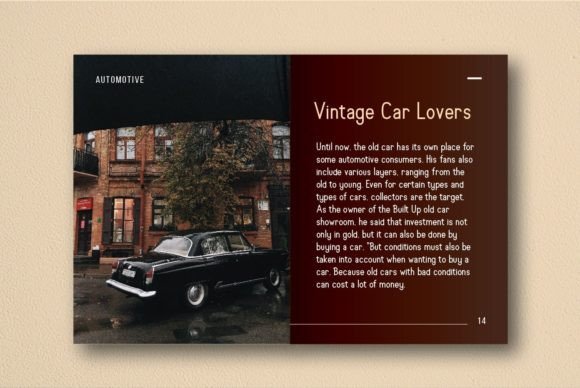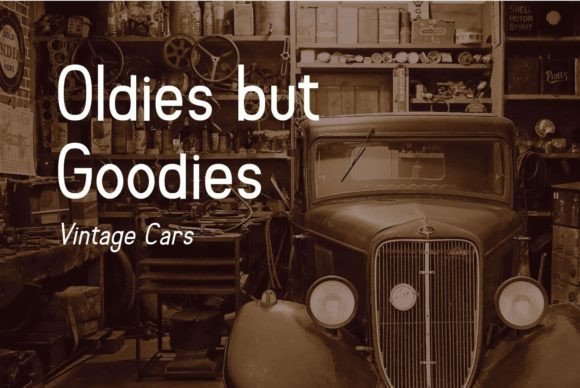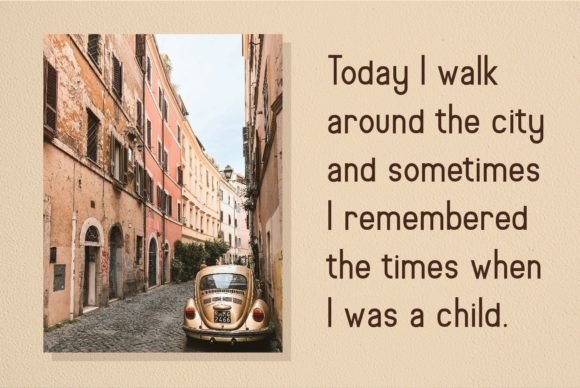
Introduction to Rolhausen Font Font
Fonts play a crucial role in design, and the Rolhausen Font font is a typeface that brings both character and versatility to any project. Whether you’re working on a branding project, a website, or a print design, the Rolhausen Font font offers a unique style that can elevate your work.
Rolhausen is a delicate and well-rounded sans serif font, perfect for crafty projects that need authentic typography.
Use it for wedding invitations, birthday cards, personal branding, and elegant logos, and your designs will stand out .
Key Features of Rolhausen Font Font
Why Choose Rolhausen Font Font?
The Rolhausen Font font is more than just a typeface – it’s a design tool that helps you communicate your message with style and clarity. Its unique character set and versatile design make it suitable for a wide range of applications, from elegant invitations to bold headlines.
With its carefully crafted letterforms and balanced proportions, the Rolhausen Font font ensures readability and visual appeal across all mediums.
What makes Rolhausen Font font special?
The Rolhausen Font font stands out with its unique design, exceptional readability, and versatility across various design applications.